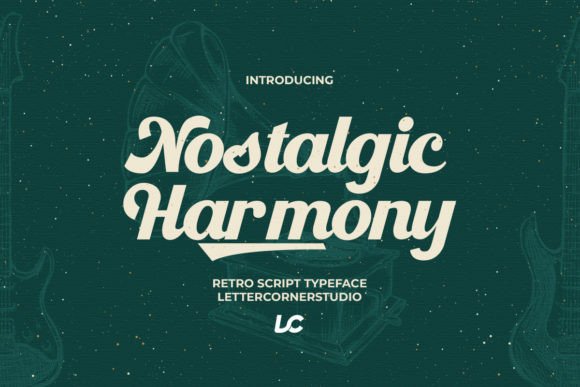
Immerse yourself in a symphony of retro charm and contemporary grace with Nostalgic Harmony, a meticulously crafted script font family that evokes the golden era of music and art. Inspired by iconic posters, album covers, and the pulsating energy of funk, disco, and rock, Nostalgic Harmony captures the essence of an era defined by bold expression and unbridled creativity.
Journey back to the 1970s, a decade that celebrated individuality and artistic freedom. Nostalgic Harmony's captivating glyphs, reminiscent of handwritten notes and vintage typography, transport you to a time of bell-bottom jeans, platform shoes, and electric guitars. With its effortlessly cool and timeless aesthetic, Nostalgic Harmony brings a touch of nostalgia to your digital creations.
Elevate your designs with the versatility of Nostalgic Harmony. Its meticulously crafted OpenType features, including stylistic alternates, stylistic sets, swashes, and ligatures, provide endless creative possibilities. Create stunning logotypes that command attention, design eye-catching posters that harken back to a bygone era, or craft unique badges and book covers that exude vintage charm.
Whether you're a graphic designer seeking to infuse your work with a touch of retro flair or a passionate crafter longing to add a personal touch to your handmade creations, Nostalgic Harmony is your perfect companion. Unleash your creativity and let the spirit of the '70s guide your designs.
Embrace the nostalgic charm of Nostalgic Harmony today and experience the magic of a font that transcends time.